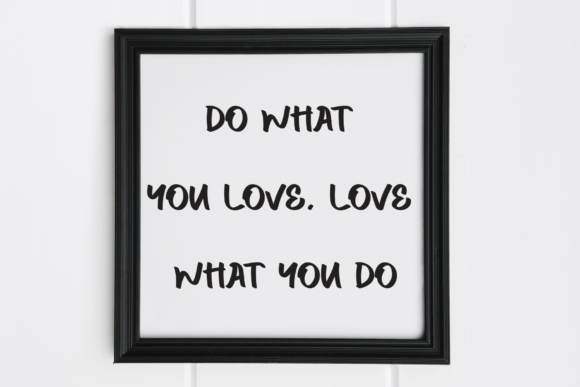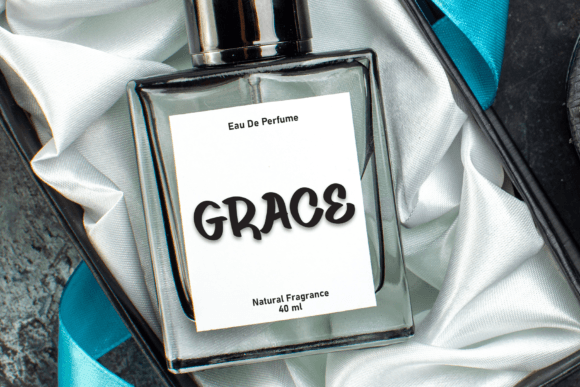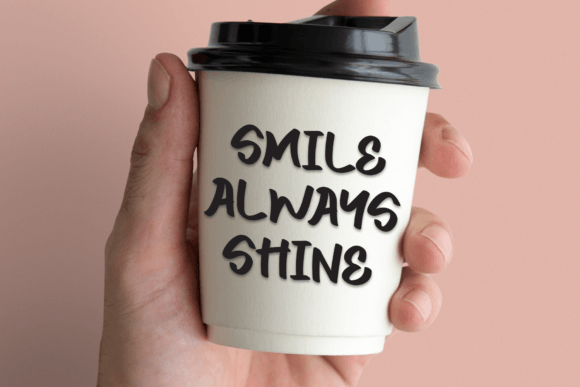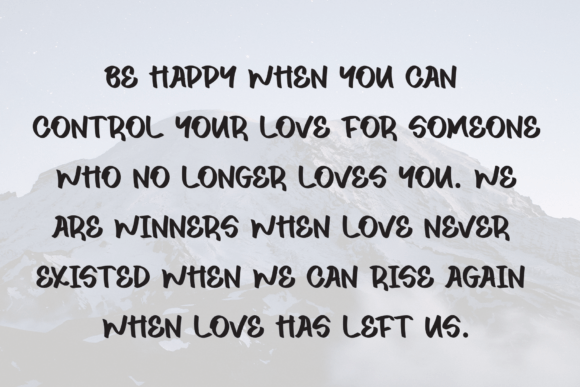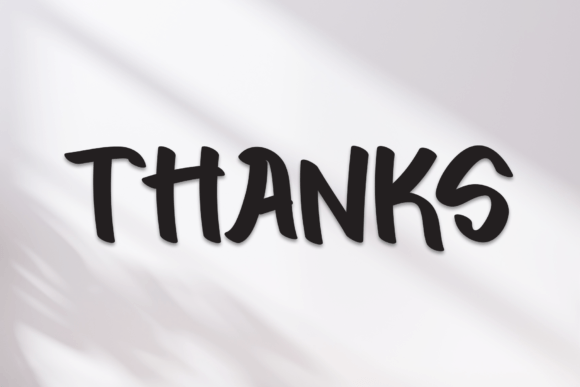
Snoopy Font
Snoopy is a sweet and friendly handwritten display font. Cute and fun, this font is ideal for writing wedding invitations, cards, or any other design that might need a fun touch!